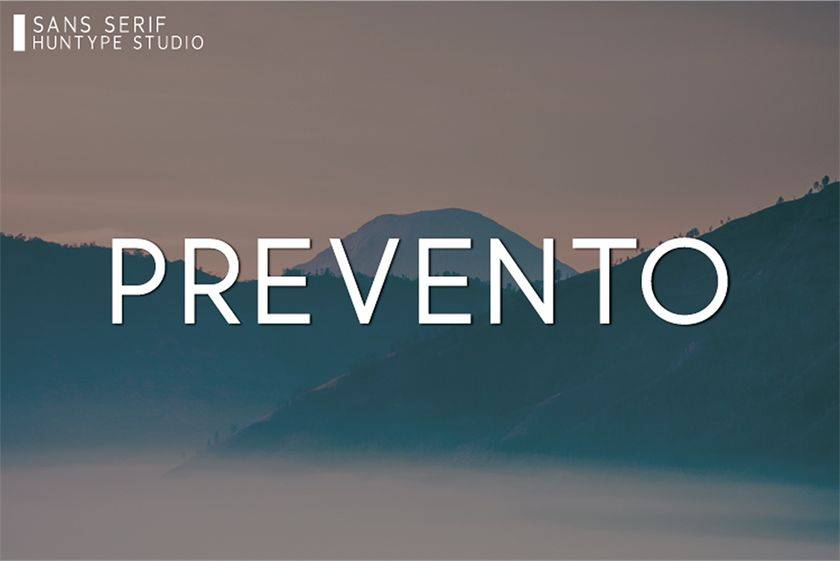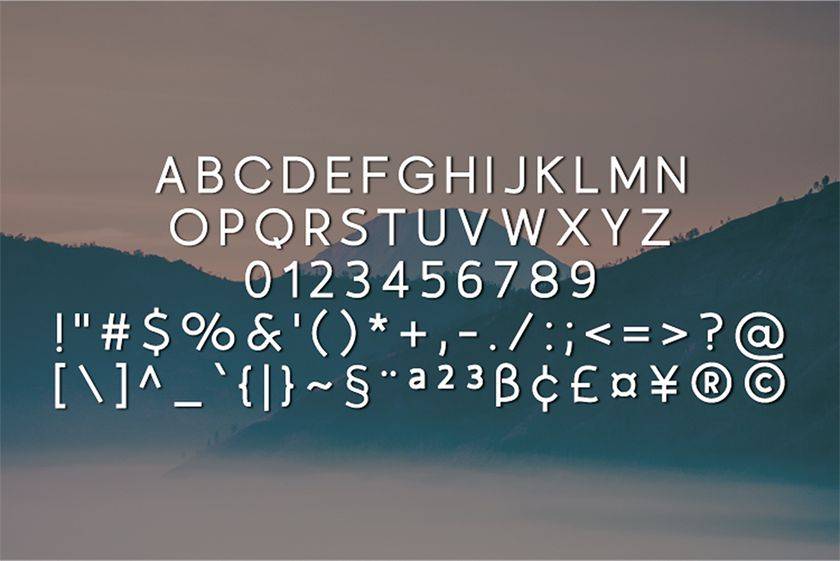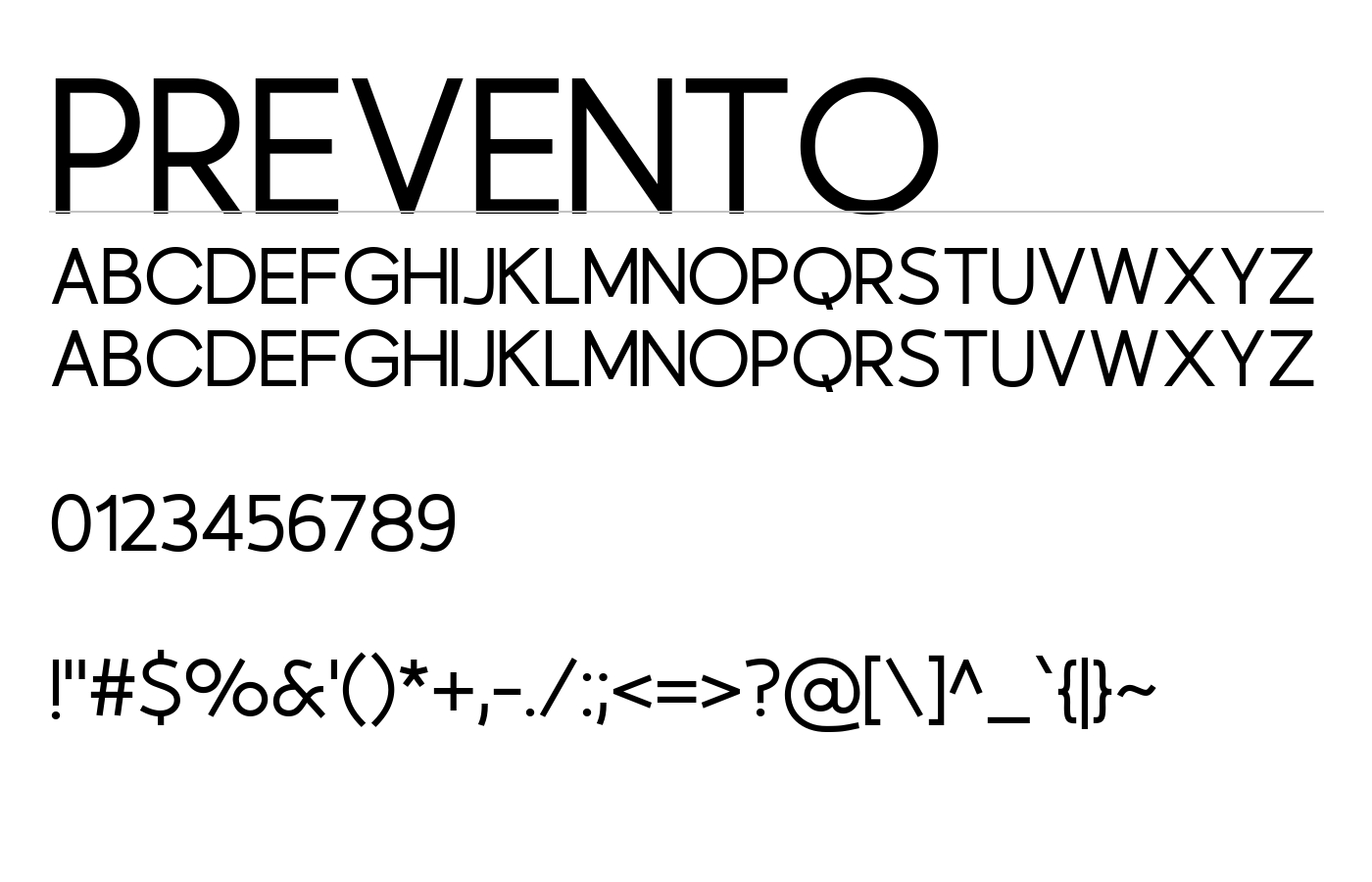
Prevento is a sleek sans serif font characterized by its clean, modern lines and geometric structure. It features a light to regular weight with consistent stroke thickness, a relatively tall x-height, and open letterforms that enhance readability. Ideal for headlines and branding, Prevento conveys a contemporary, professional feel suited for technology, editorial, and minimalist design projects.
Prevento Font
About Prevento Font
| Font family | Prevento Font |